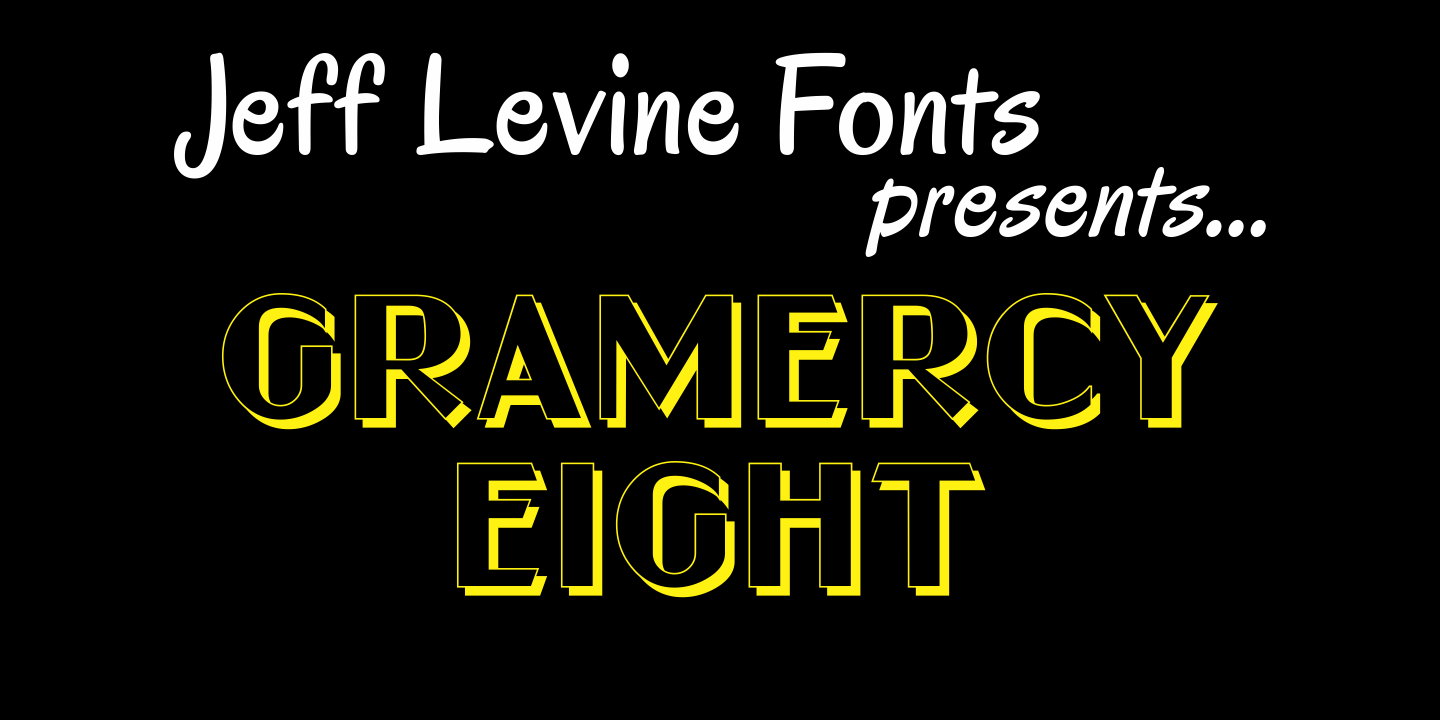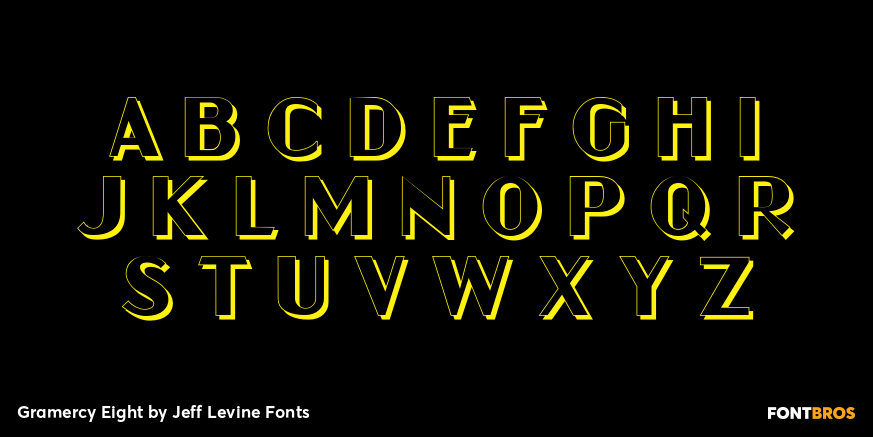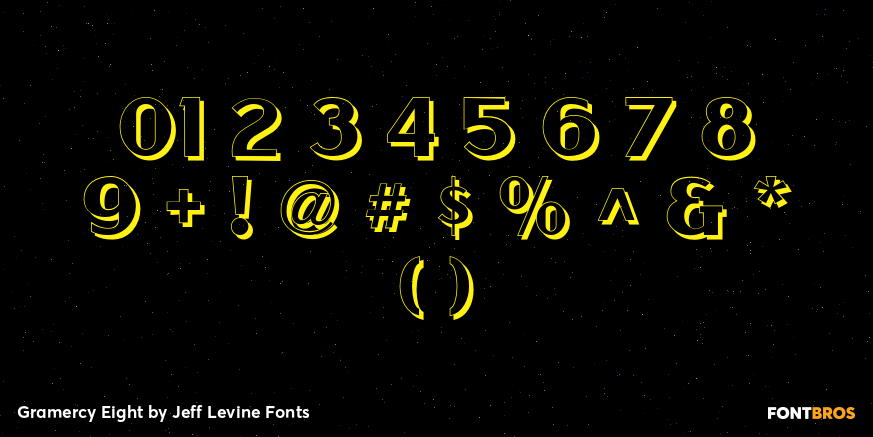
Gramercy Eight
Gramercy Eight JNL is an outline and drop shadow treatment of Crestview Six JNL, inspired by some 1930s-1940s era Art Deco hand lettering spotted on a sales flier for some decorator decals.